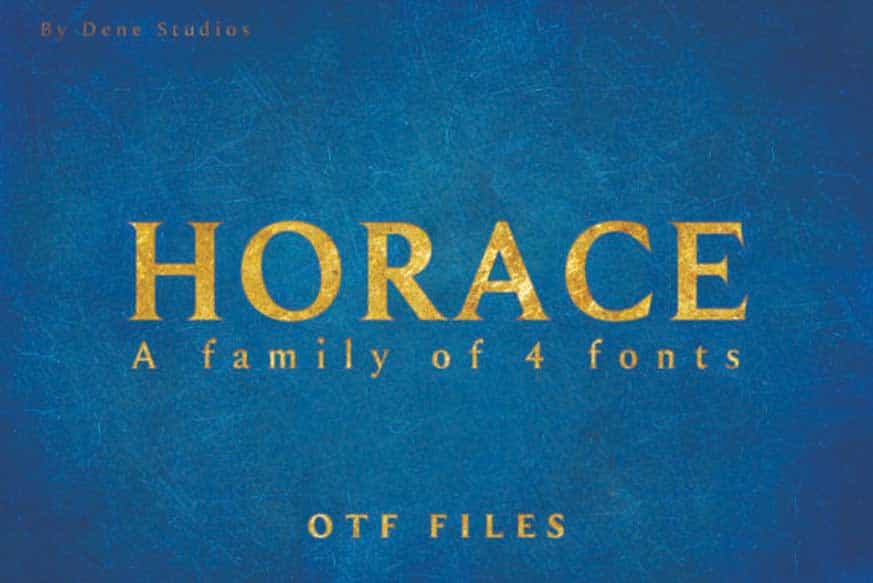
Discover Horace Font, part of the Serif collection—a versatile and unique font perfect for adding a personal touch to your projects. Download it for free and enjoy crafting designs with style, from invitations to social media posts. This font is available exclusively for personal use, giving you the freedom to create without limits. Unlock your creativity with Horace Font today!
‘Horace,’ on the hand strikes the balance between strength and elegance with a modern twist. Ideal for those seeking inspiration from contemporary sophistication.